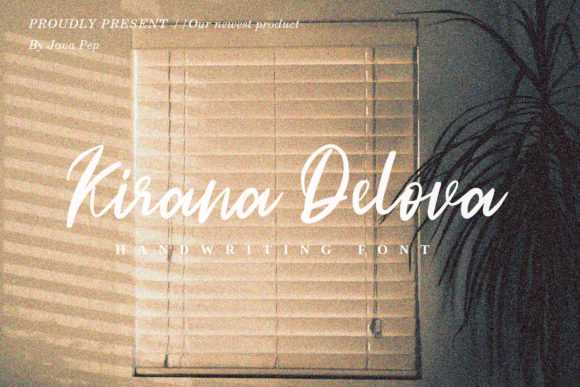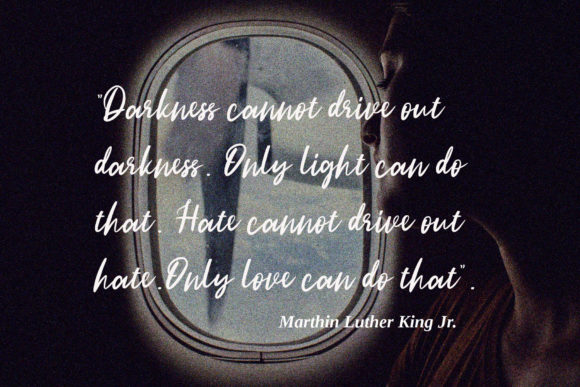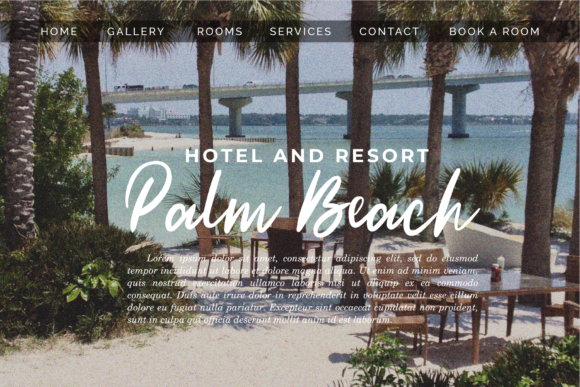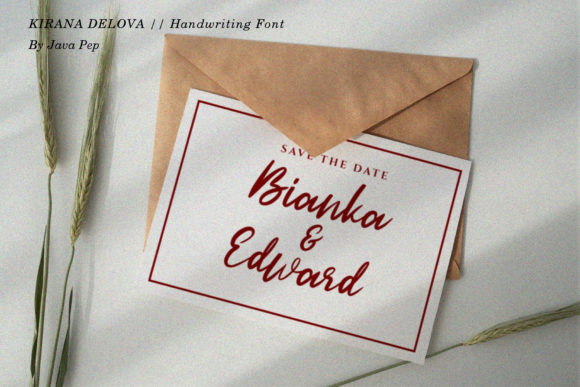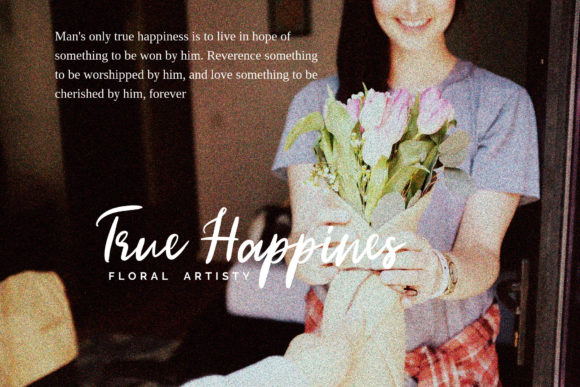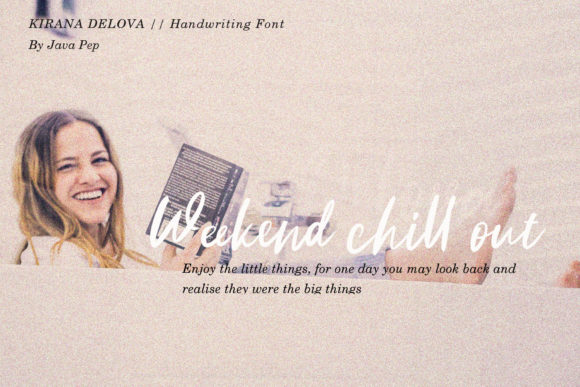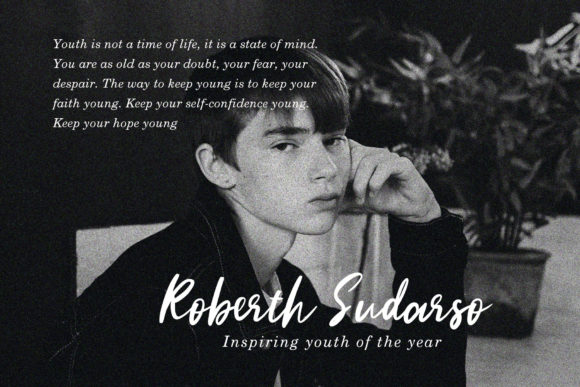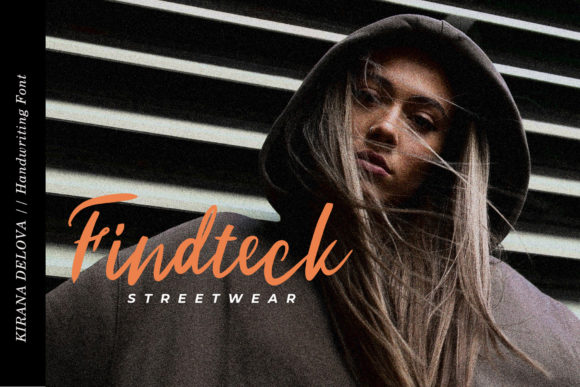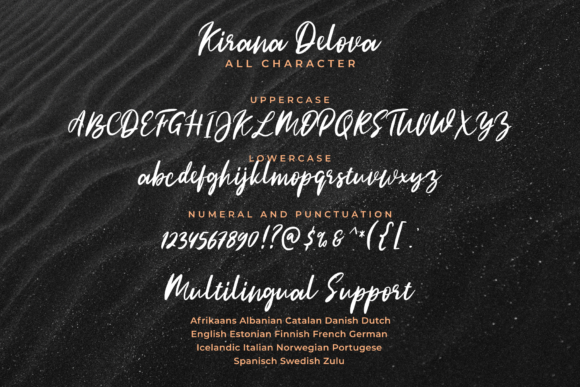
Kirana Delova Font
About Kirana Delova Font
Kirana Delova is a handwriting font that made by natural brushstroke. It is perfectly suited for a wide variety of projects!